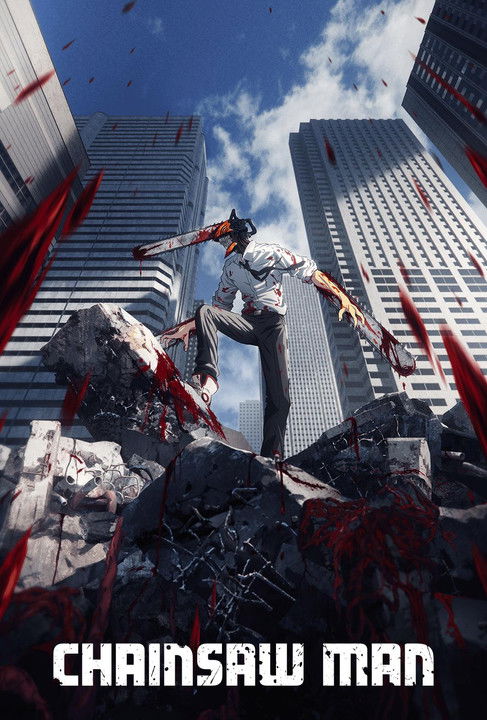
About the Chainsaw Man font
Chainsaw Man's logo is rough, metallic and violent. Metal Mania brings that same gritty, blood-and-chainsaw edge.
What font is used in the Chainsaw Man logo?+
The original Chainsaw Man logo uses custom lettering. This generator recreates the look with Metal Mania — a free, open-license font you can style and download.